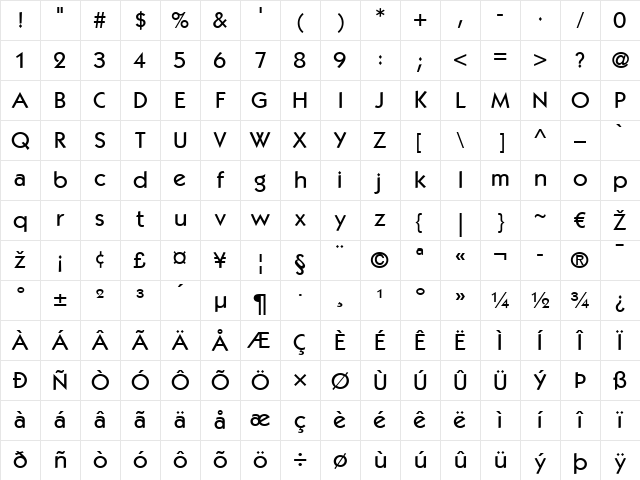
ITCKabel LT Medium Regular
Design Context for ITCKabel LT Medium
ITCKabel LT Medium is a composed and adaptable typeface that performs quietly and consistently across a wide range of design contexts. Its slender proportions lend an understated elegance to any composition.